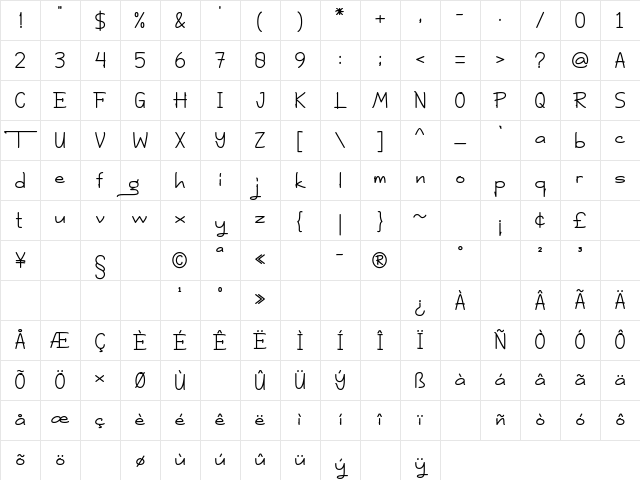
The Lightness Regular Free Font
Design Context for The Lightness
The Lightness is a composed and adaptable typeface that performs quietly and consistently across a wide range of design contexts. Its slender proportions lend an understated elegance to any composition.